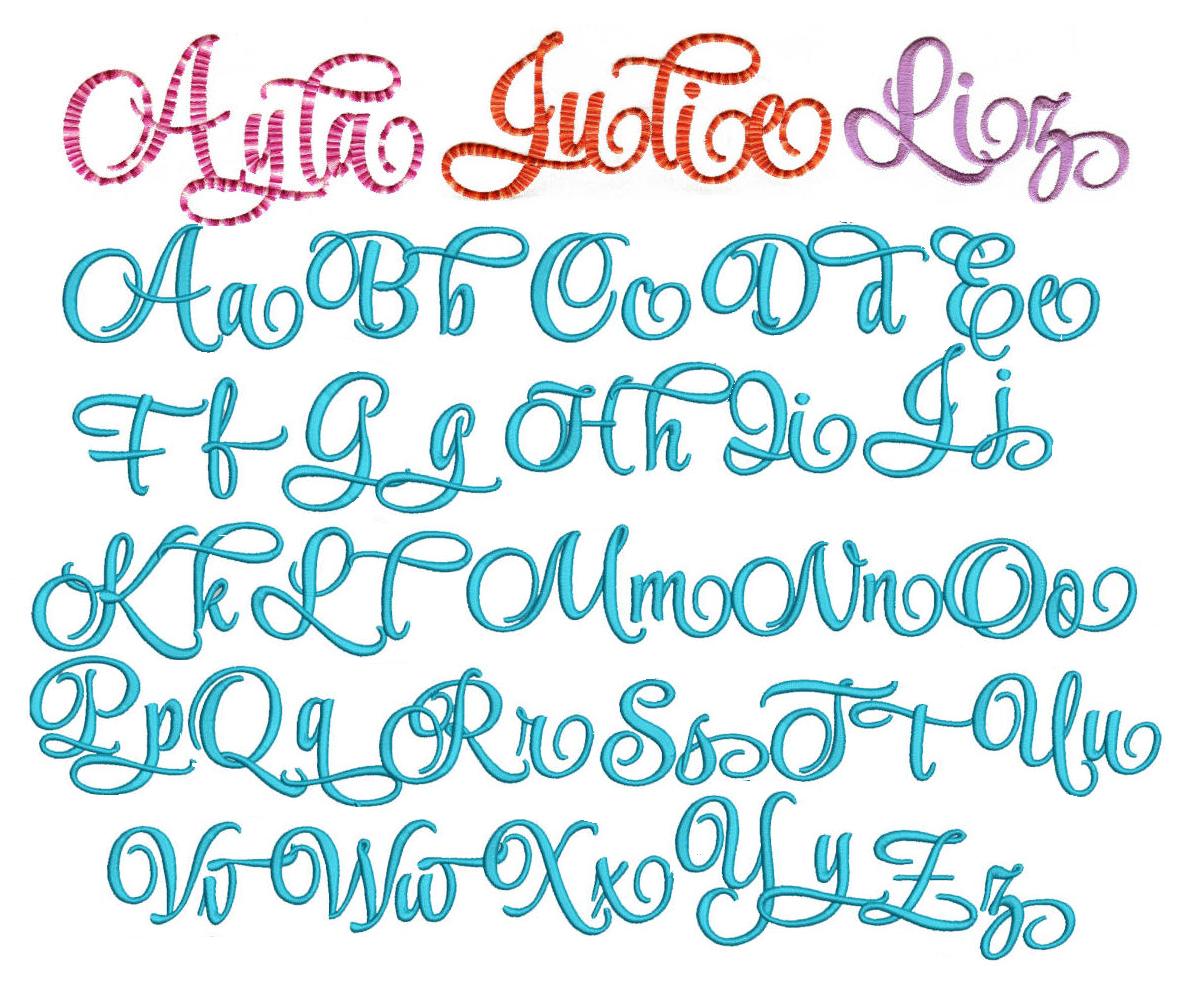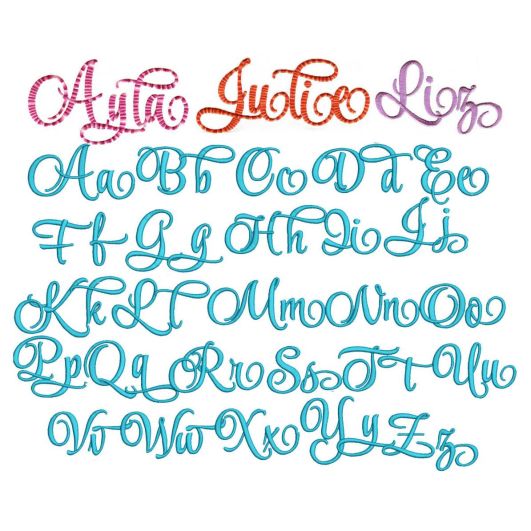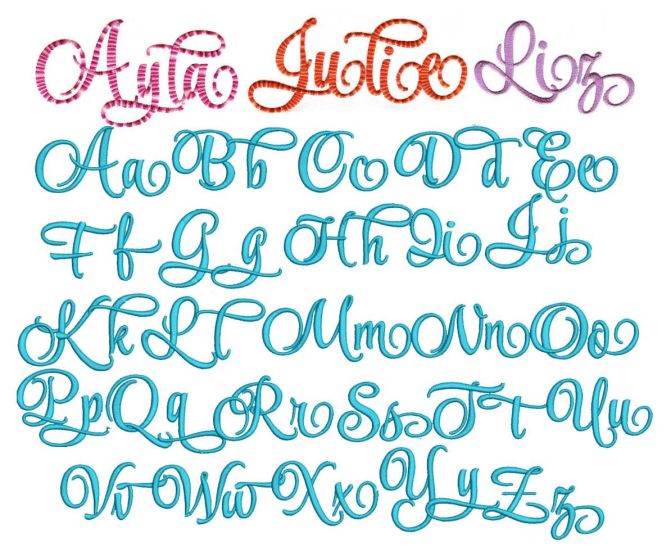
Ayla Script Satin Stitch Embroidery Font
Here is a beautiful script alphabet that is perfect for personalizing your projects. Use to make names or monograms and whip up something elegant and sweet for that someone special.  All of our font alphabets are 100% manually digitized to bring you maximum stitch quality.